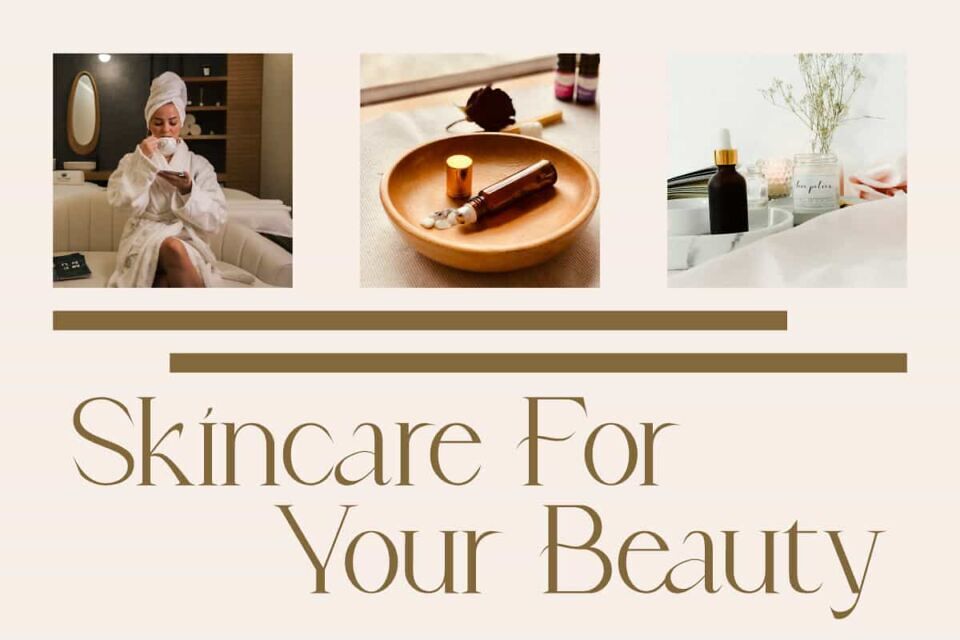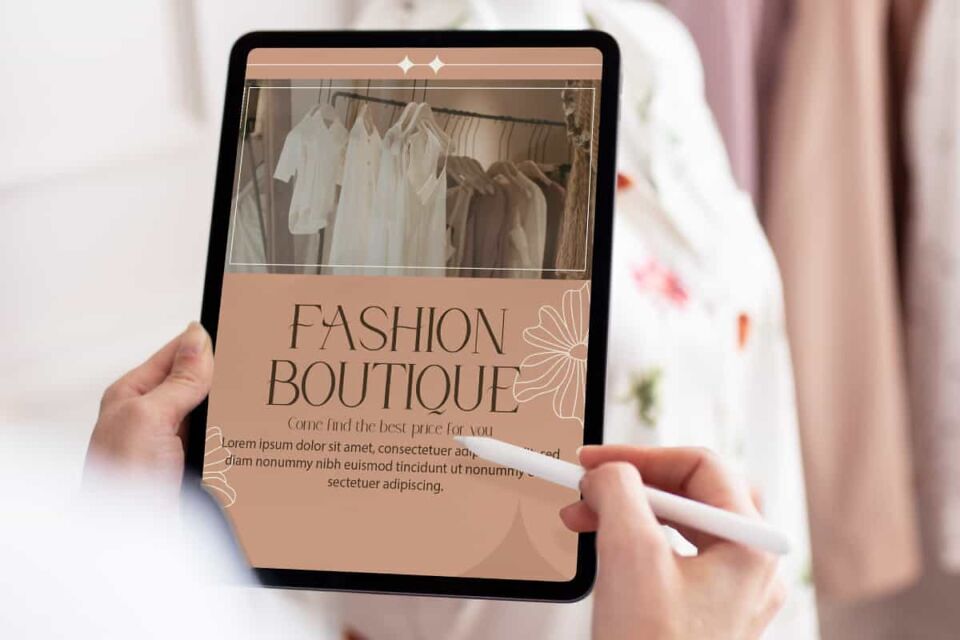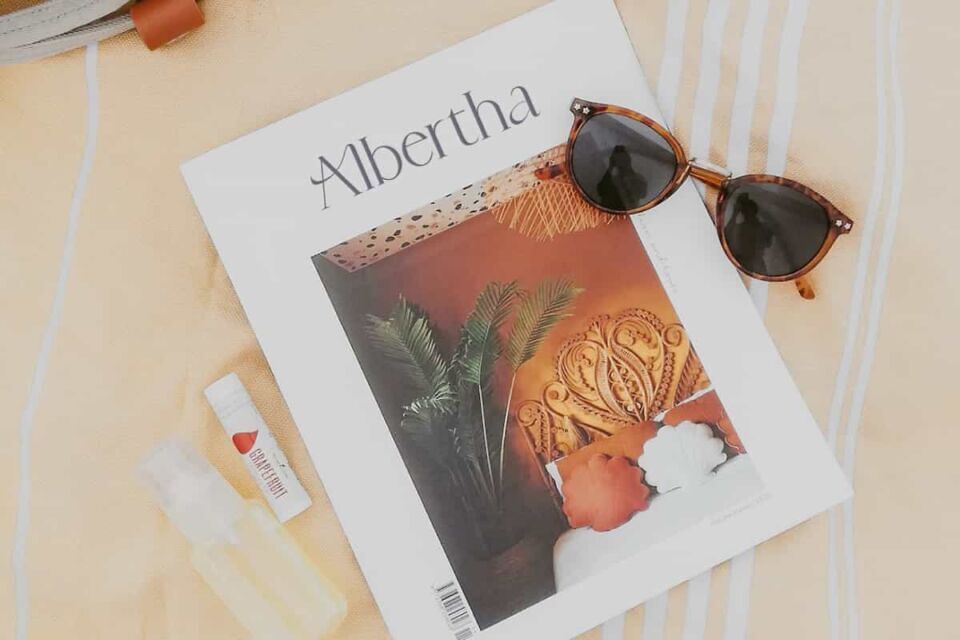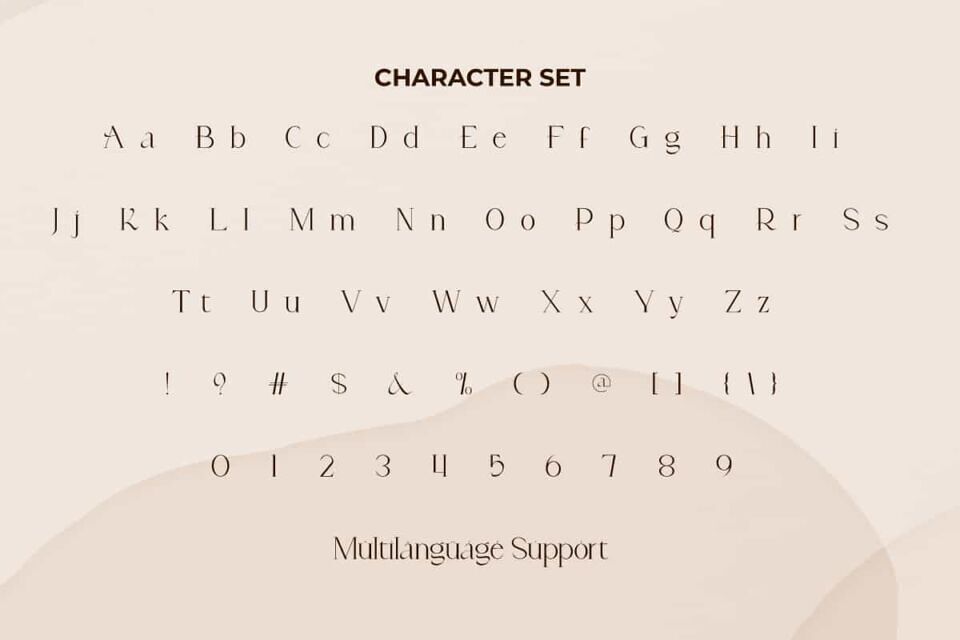
Ajie Aleana is an aesthetic fancy serif display font. This font has a simple yet luxurious style so it can be used in a variety of design concepts. It will be perfect for brand image, cover, custom design, invitation, label, marketing material, menu, poster, product packaging, quotes, signage, stationery, web, and many more!
Ajie Aleana Font includes full set of Uppercase and Lowercase Basic Characters, Numerals and Punctuation, and Ligature character. This font will be perfect choice for many industries, such as boutique, advertising, beauty product, cafe, event or wedding organizer, jewelry and accessories, photography, printing, publishing, restaurant, etc.